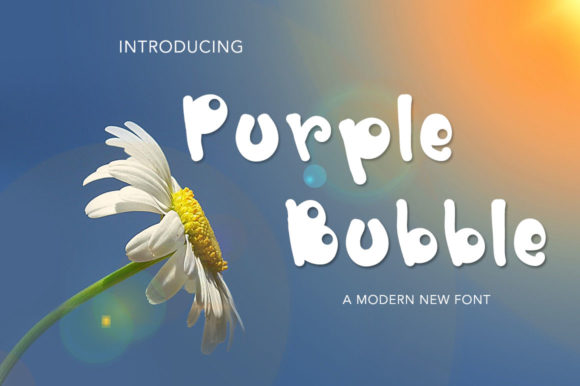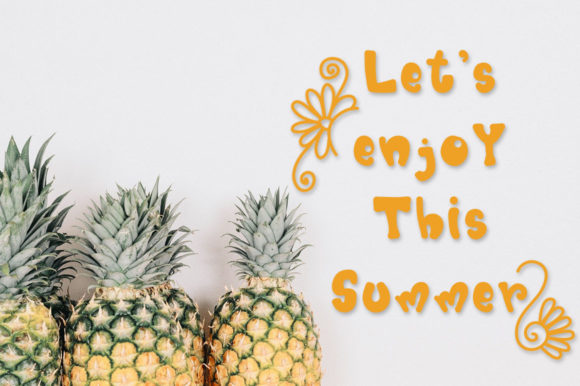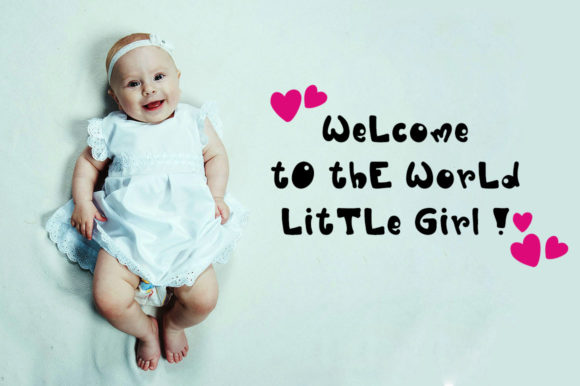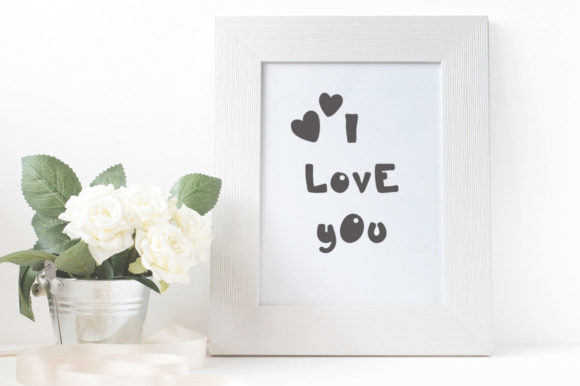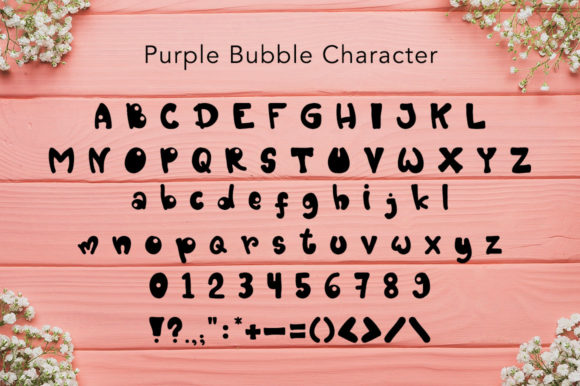
Purple Bubble Font
About Purple Bubble Font
Purple Bubble is a cute and casual handwritten font. Purple Bubble will look outstanding in any context,
Whether you’re looking for fonts for Instagram or calligraphy scripts for DIY projects, Purple Bubble will turn any creative idea into a true piece of art!